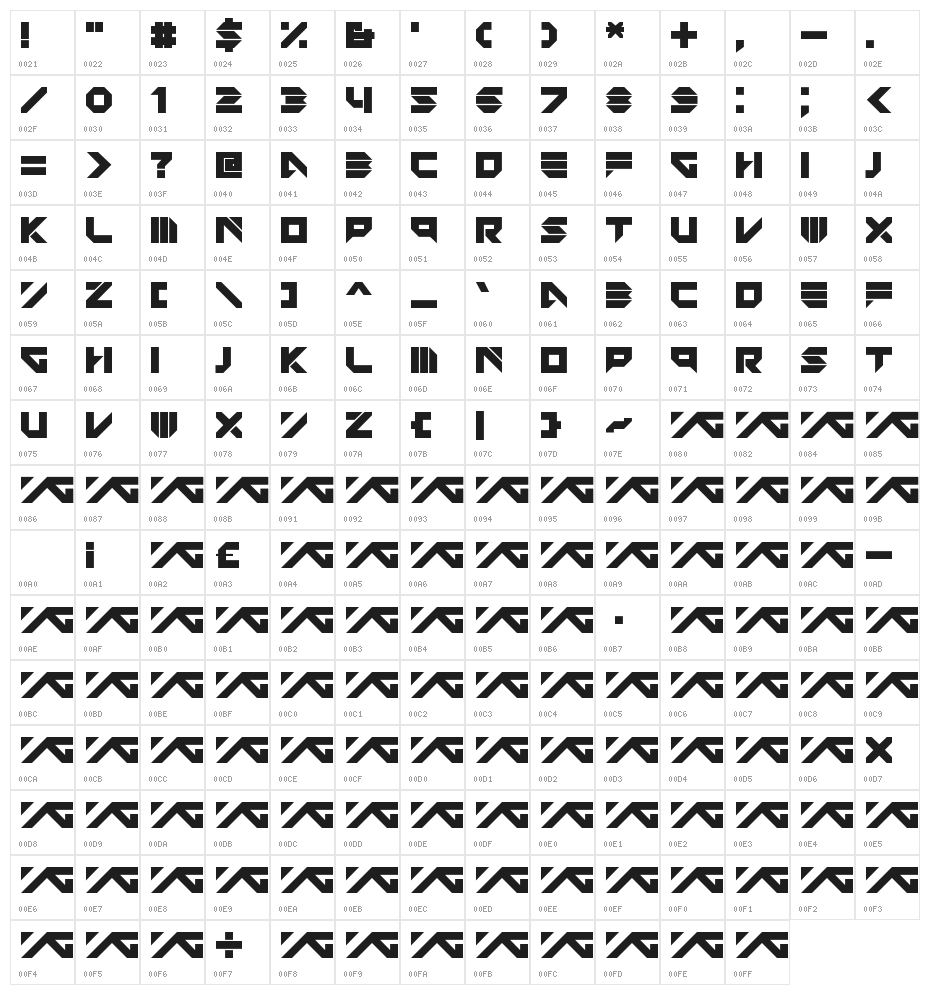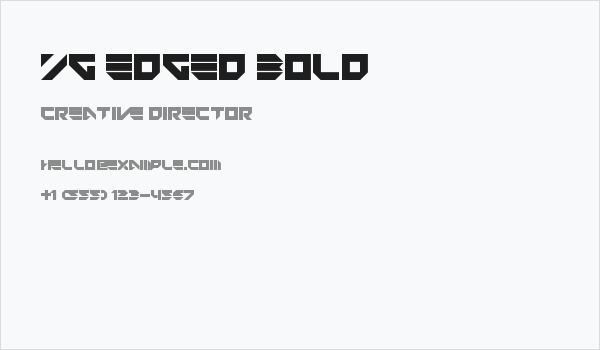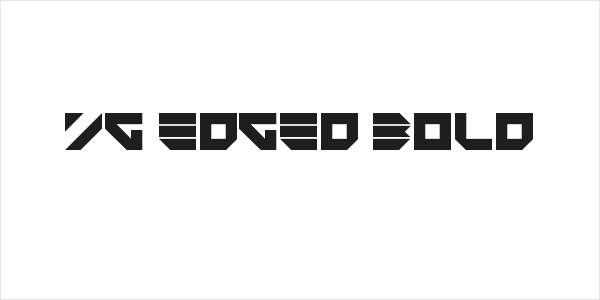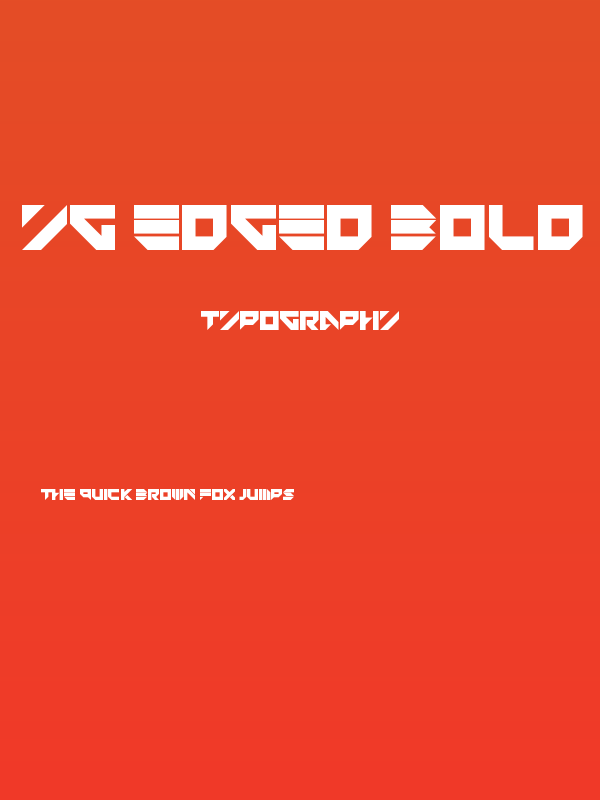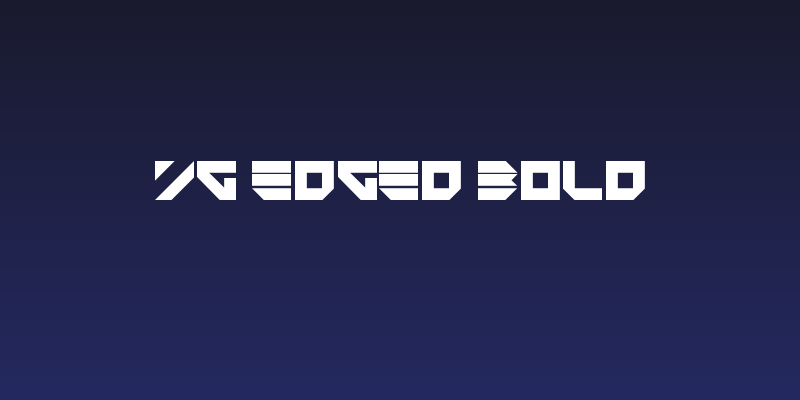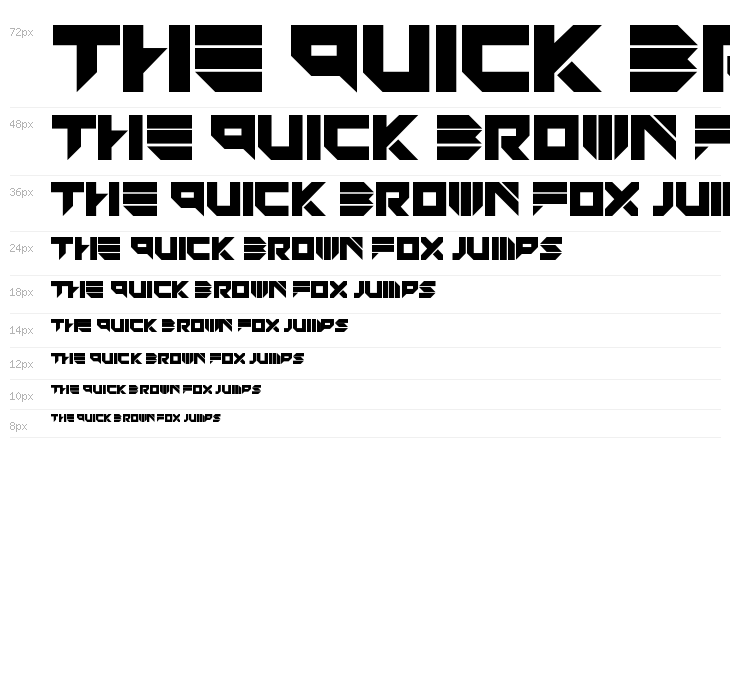
YG Edged Bold Font
YG Edged Bold Description
This font features a bold, geometric design with sharp, angular edges and a futuristic aesthetic. The characters are constructed with a series of straight lines and diagonal cuts, giving them a distinctive, edgy appearance. The uppercase and lowercase letters maintain a consistent style, with a strong emphasis on symmetry and alignment. Numbers and special characters follow the same design principles, ensuring a cohesive look across all glyphs. The font's bold weight and unique style make it stand out, suitable for projects that require a modern and impactful visual statement.
| Proposed Projects | Ideal for sci-fi themed designs, video game graphics, tech branding, and modern posters. |